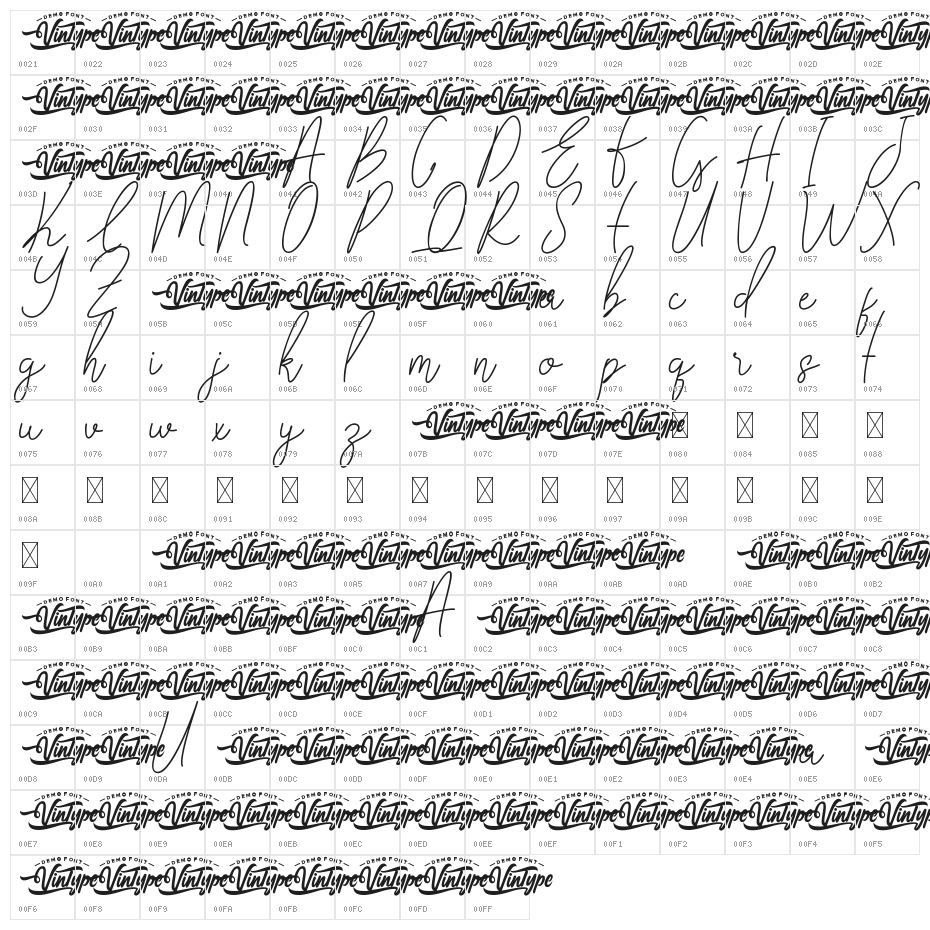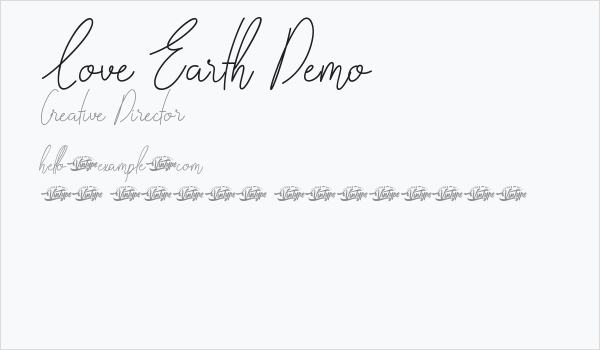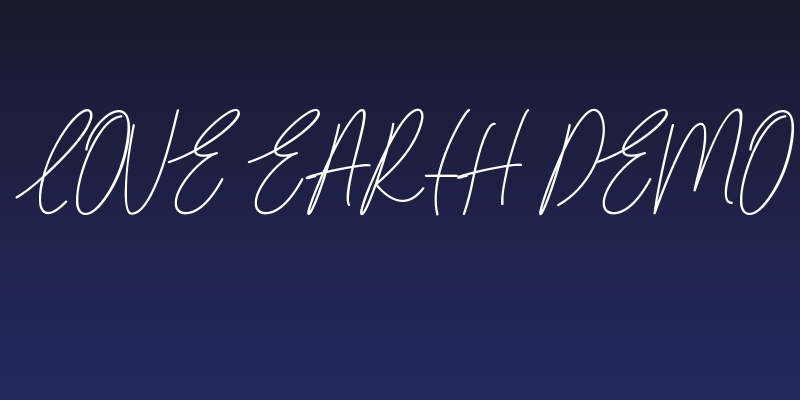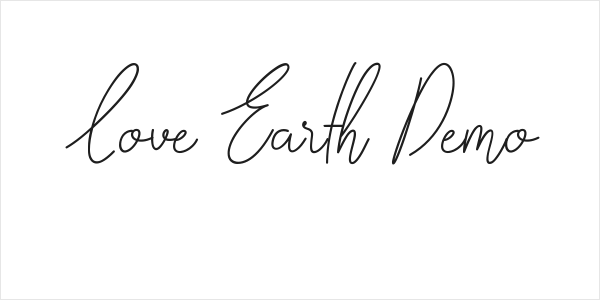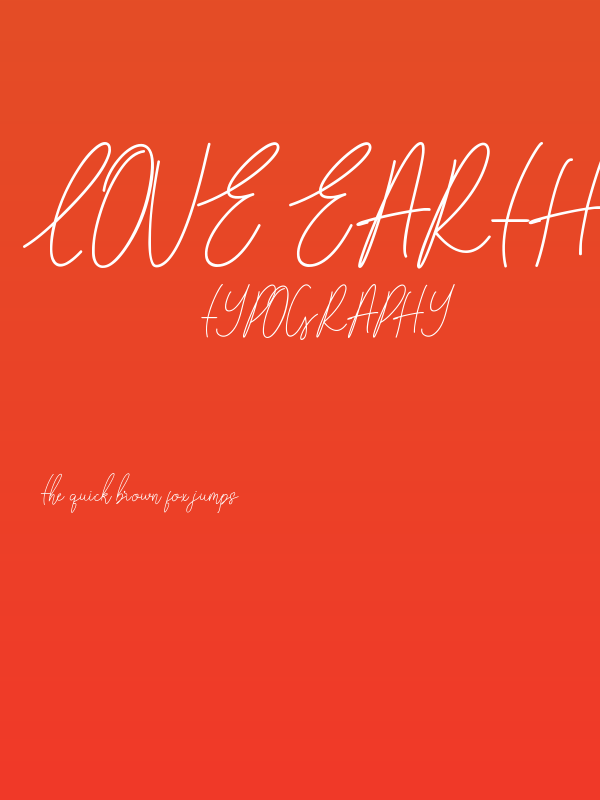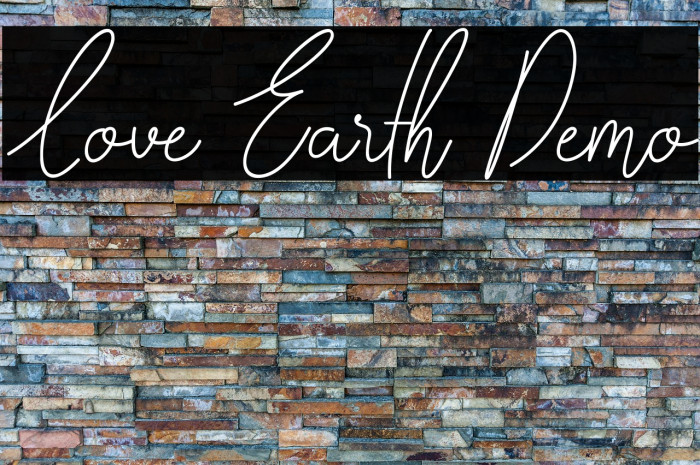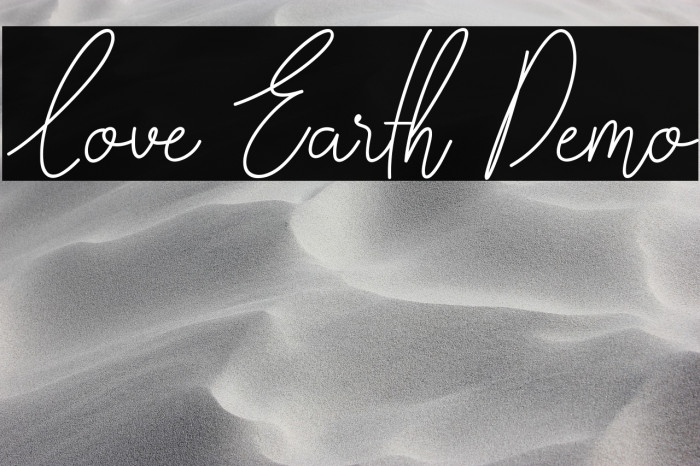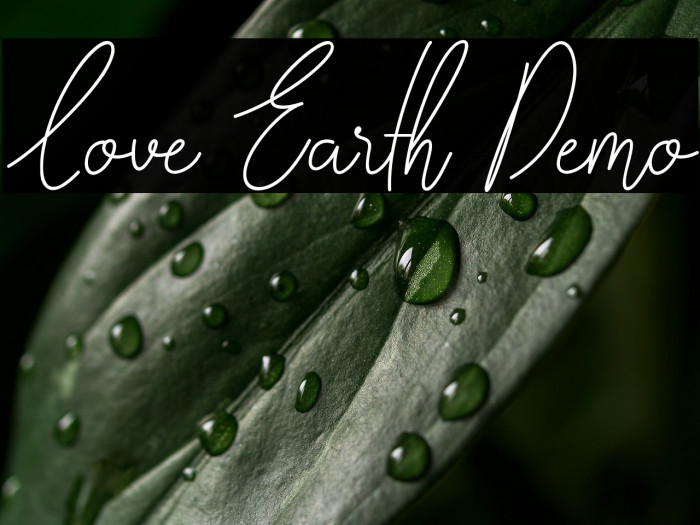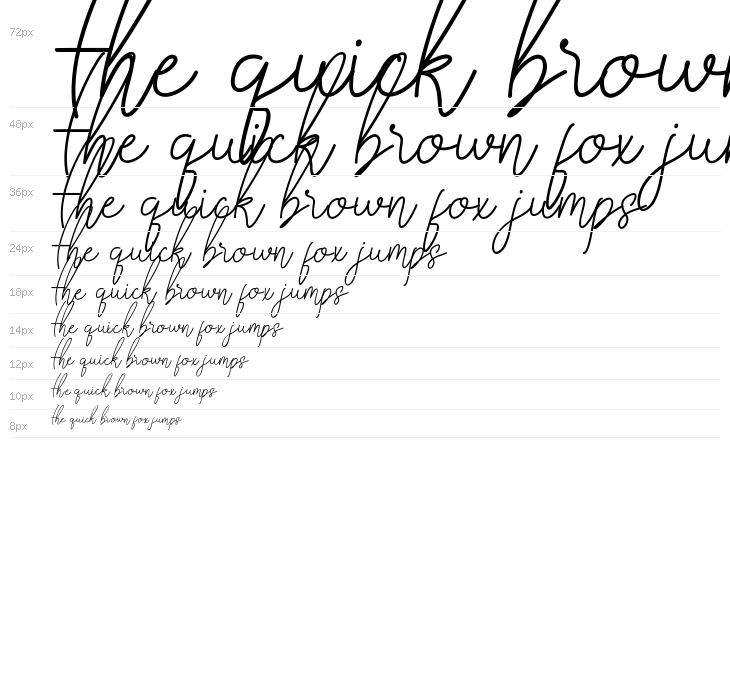
Love Earth Demo Font
Love Earth Demo Description
This font features an elegant and flowing script style, characterized by its smooth, connected strokes and a handwritten appearance. The uppercase letters are tall and slender, with a graceful, slightly slanted form. The lowercase letters maintain a consistent flow, enhancing the font's cursive nature. The numerals and special characters are designed to complement the overall aesthetic, ensuring a cohesive look across all text. This font exudes a sense of sophistication and charm, making it ideal for projects that require a personal touch.
| Overall Style | Elegant, Handwritten |
| Proposed Projects | Ideal for wedding invitations, greeting cards, personal branding, and elegant packaging designs. |